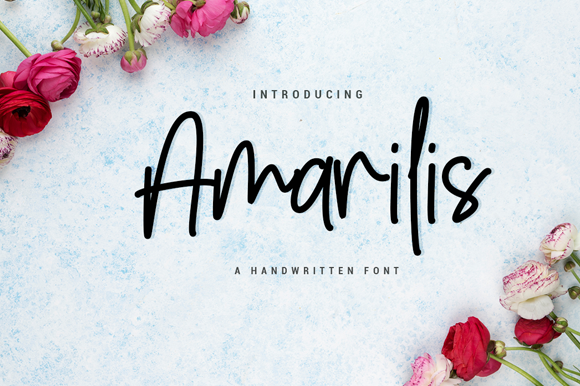
Amarilis Font
About Amarilis Font
Amarilis is a stunning handwritten font. This stylish & modern script offers a personal handwritten feel for your designs.